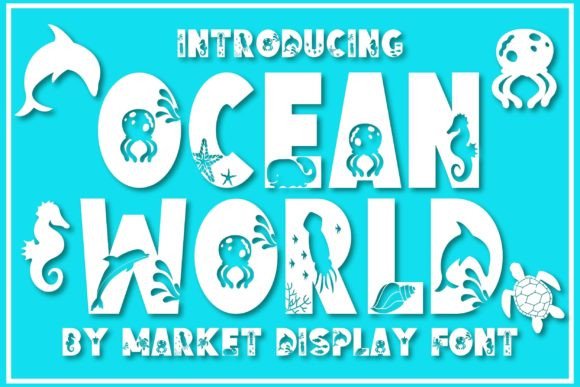
Introducing the Ocean World Font, the perfect addition to your font collection! Created by MDF, this cute and adorable decorative font is sure to bring a touch of youth and joy to all your designs.
Looking for the best fonts for beach logos? Ocean World is the perfect choice! With its playful and fun design, this font is ideal for any seaside-inspired project. Whether you're creating graphics for a beach party, designing a swimming club logo, or adding some character to your vacation photos, Ocean World has got you covered.
But don't just take our word for it - see for yourself how this font can elevate your designs to the next level! The unique and creative letterforms of Ocean World are sure to captivate and inspire your audience. From the curved lines that resemble waves to the bubbly, cartoon-like style, this font is packed with personality and charm.
And the best part? Ocean World is versatile enough to use in a variety of contexts. From party invitations to product packaging, this font will help your designs stand out and make an impact.
So what are you waiting for? Download Ocean World today and let your creativity run wild! With its cheerful and charming design, this font is sure to become a go-to choice for all your design needs. Whether you're a professional designer or a hobbyist, Ocean World will help you create beautiful, eye-catching designs that will leave a lasting impression.
Don't settle for boring fonts - choose Ocean World and take your designs to the next level!